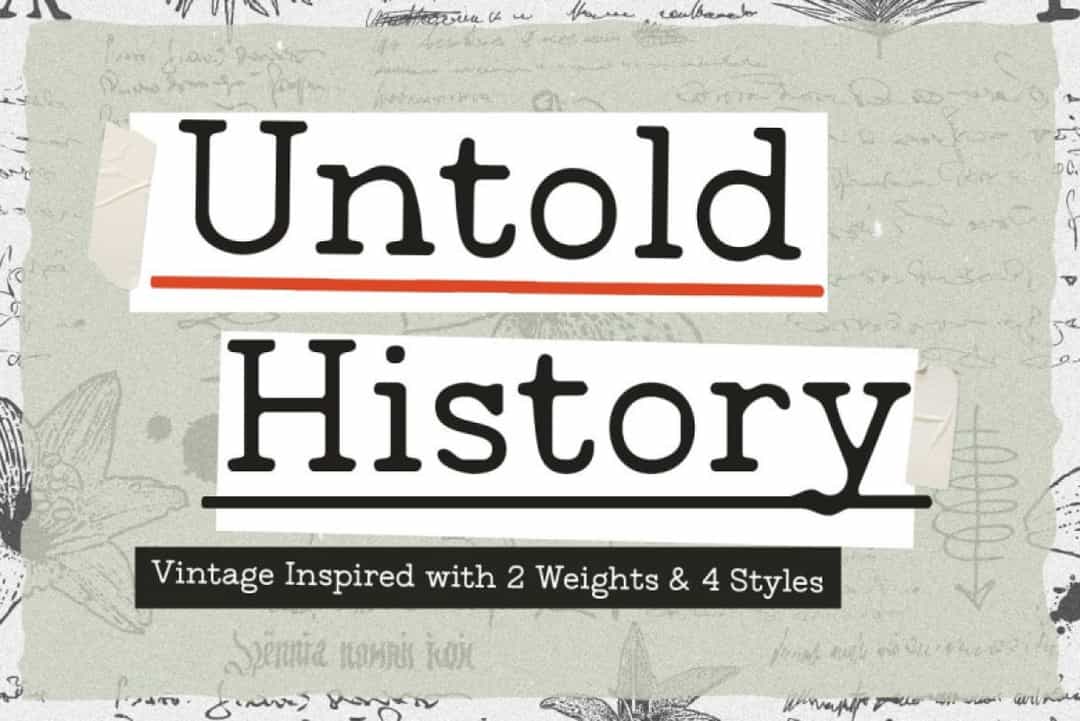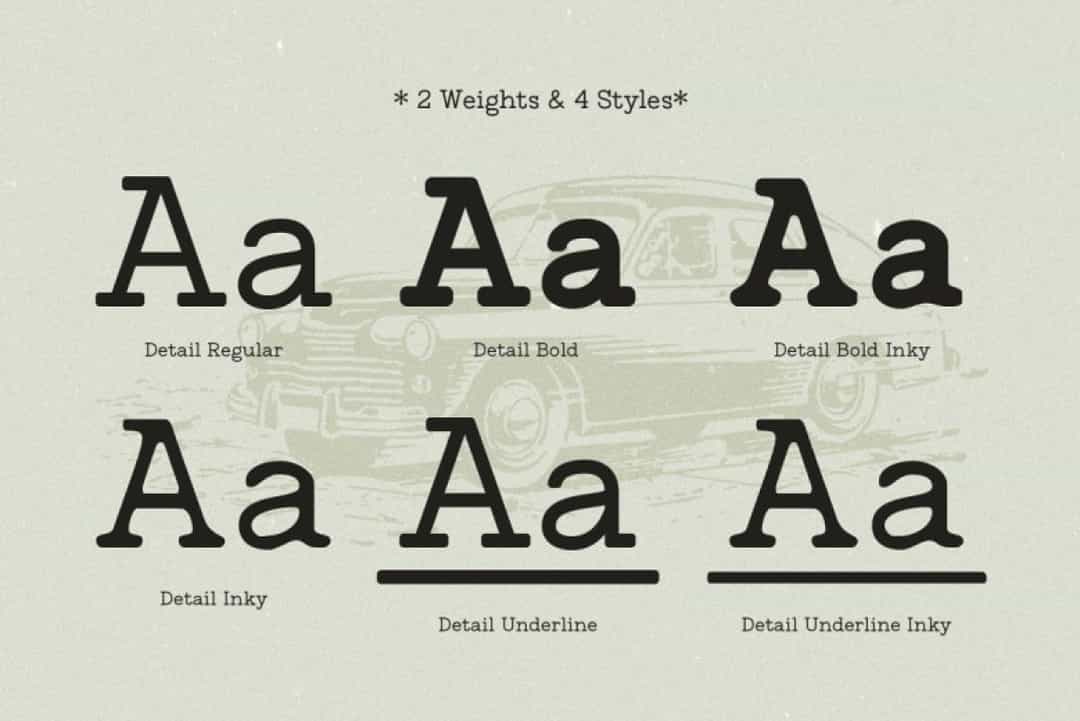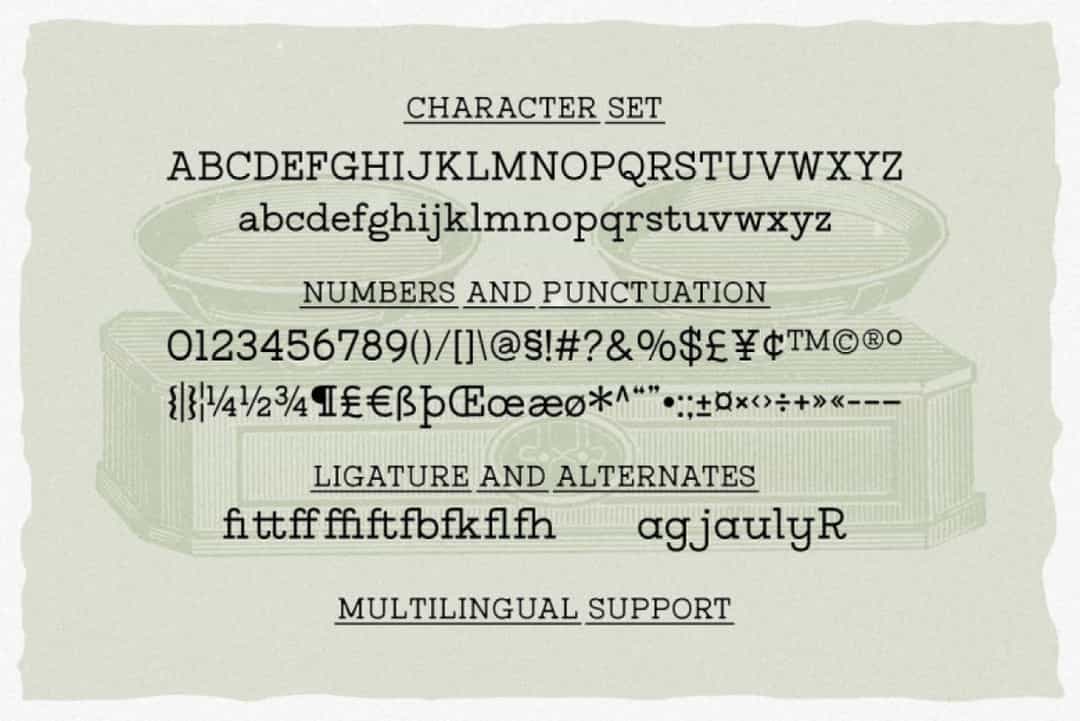
Relive your past with the Untold History font – a classic typewriter font with modernized features. Available in four styles (bold, regular underlined, bold and inky), each provides its own set of distinctive features for creating different looks; plus there’s even one style which creates an ink bleed effect to give an authentic vintage appearance!